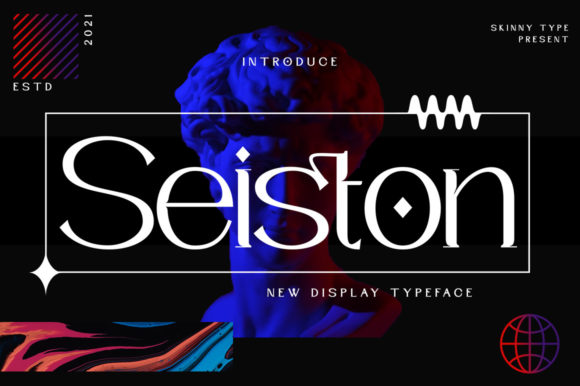
Seiston Font
Seiston is a cool, modern and trendy display font. It is ideal for writing web designs, business cards, or pretty much anything else that requires a futuristic touch.